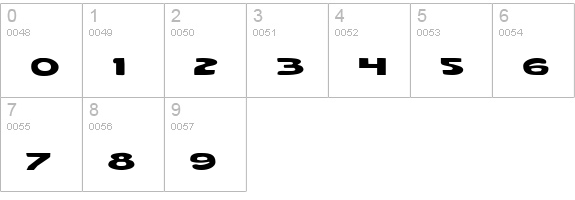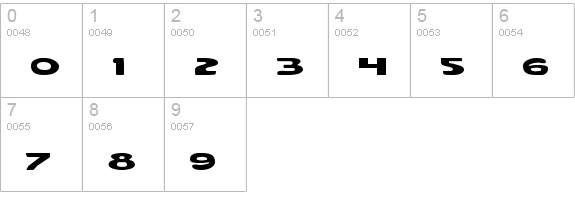
Quartermain Expanded is a distinctive, extended-width variant in the Quartermain typeface family \xE2\x80\x94 well suited to design and typography projects.
Quartermain Expanded is a versatile and contemporary font that effortlessly captures attention with its bold and confident presence. Its sleek lines and refined proportions make it the perfect choice for a wide range of design projects, from eye-catching headlines to striking logos and branding materials. This font is a bold expansion of the original Quartermain font, designed to make an even bolder statement. With its expanded letterforms and increased width, Quartermain Expanded exudes power and authority, while still maintaining a sense of elegance and sophistication. What sets Quartermain Expanded apart is its uniqueness and versatility. It effortlessly blends the classic charm of traditional serif fonts with a modern twist, resulting in a truly distinctive typeface that stands out from the crowd. Each letter is meticulously crafted to ensure legibility and readability, making it suitable for both print and digital applications. And the best part? Quartermain Expanded is available for free download at FontsMarket.com. Whether you're a professional designer looking to add a touch of sophistication to your next project or an individual looking to elevate your personal creations, this font is readily available and easily accessible. With just a few clicks, you can bring Quartermain Expanded to life and infuse your designs with its bold and captivating essence. So don't miss out on this opportunity to enhance your creative endeavors. Download Quartermain Expanded today, and let its striking presence and versatility elevate your designs to new heights. Unleash your creativity and make a lasting impact with this remarkable font, freely available at FontsMarket.com.